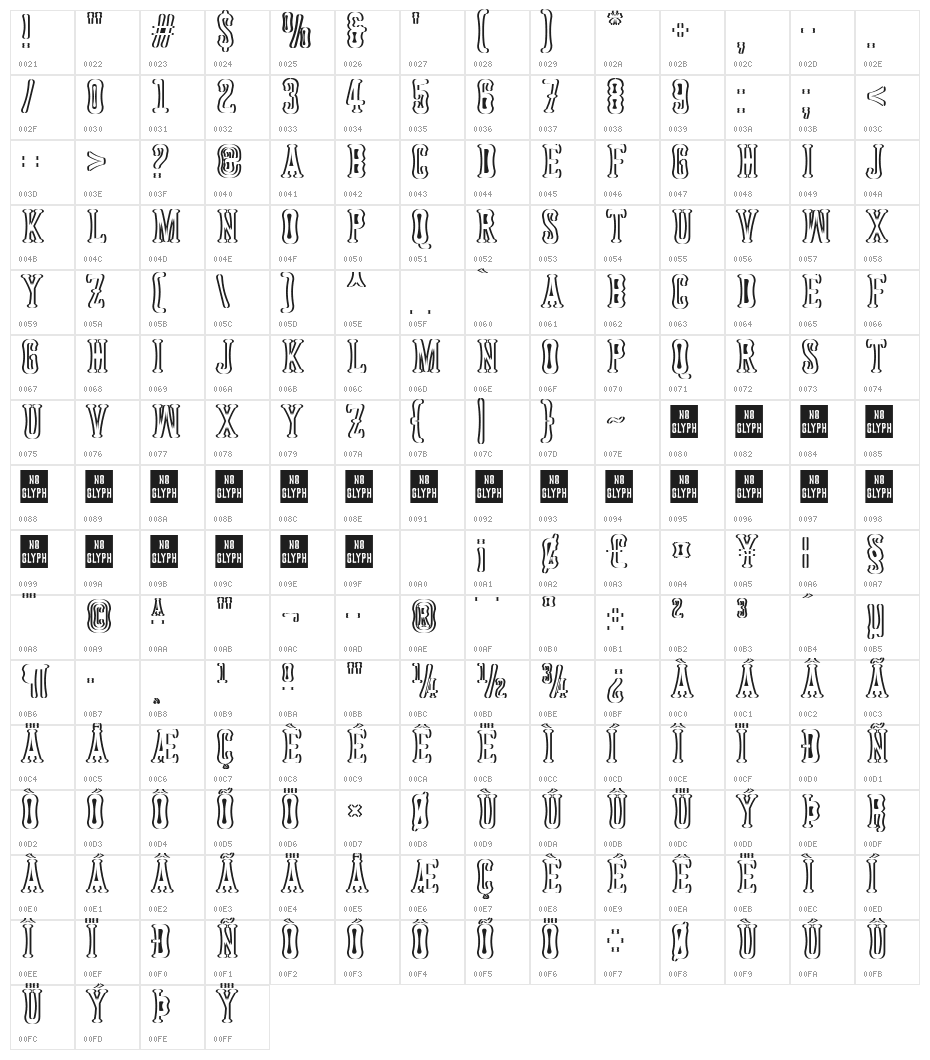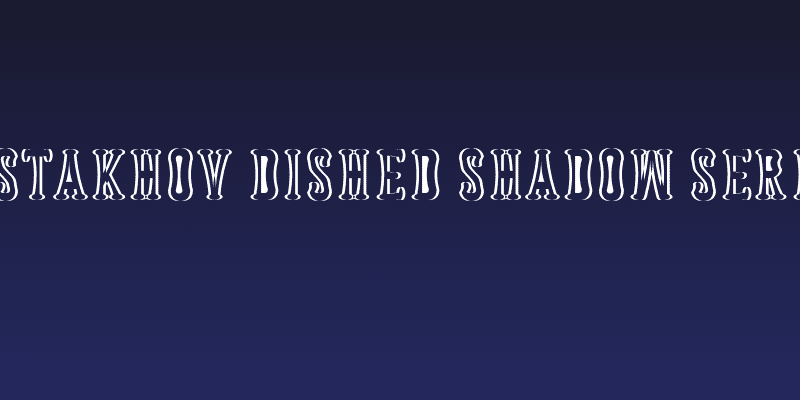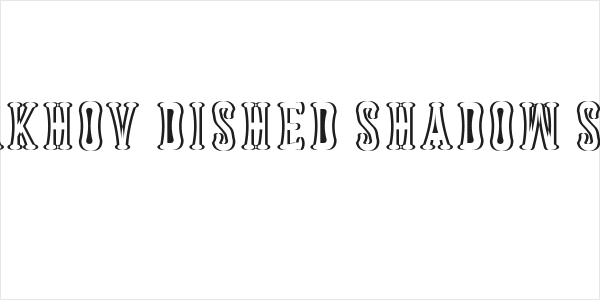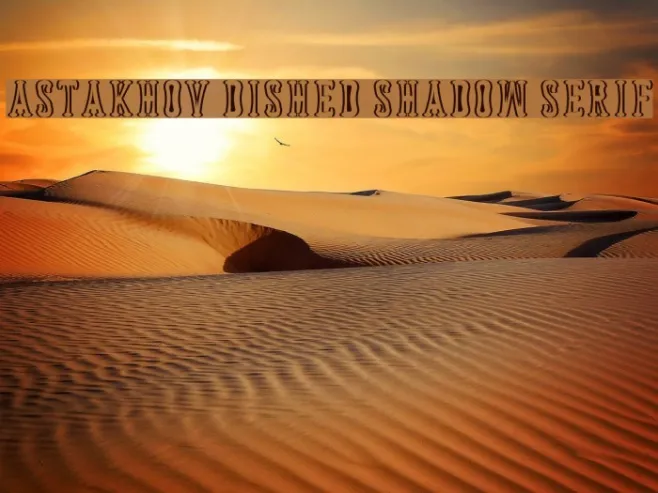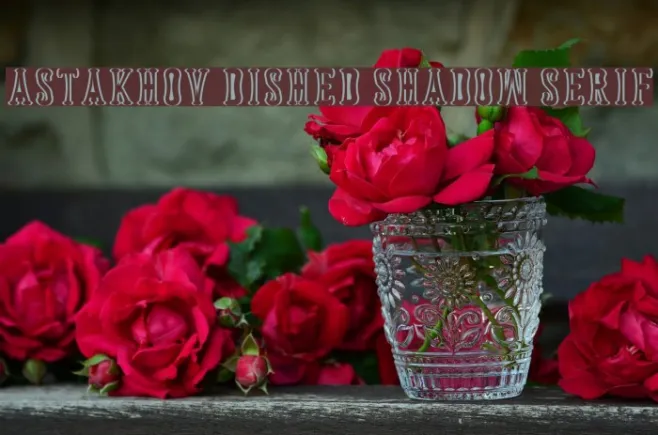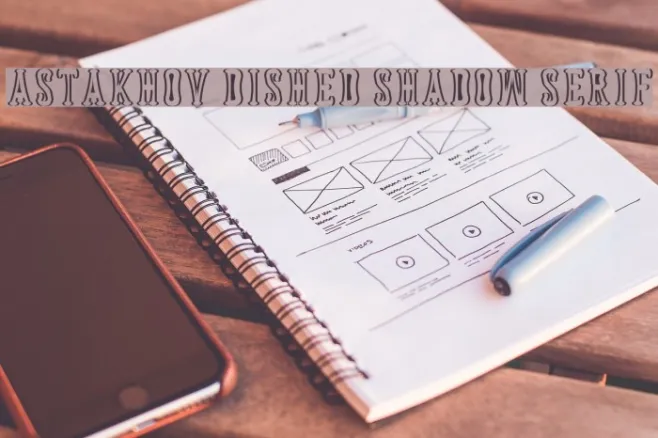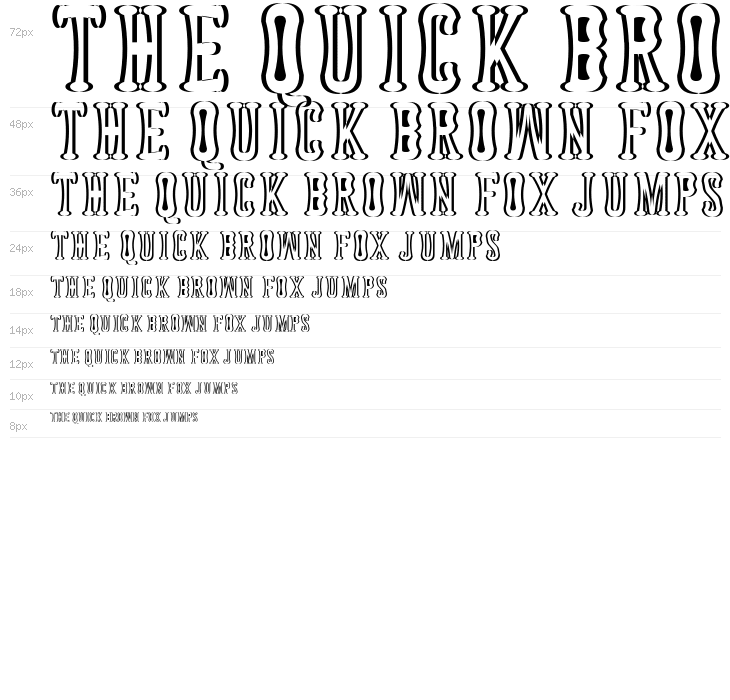
Astakhov Dished Shadow Serif Font
Astakhov Dished Shadow Serif Description
This font features a bold and decorative serif style with a unique shadow effect that gives it a three-dimensional appearance. The characters are designed with a strong vertical emphasis and pronounced serifs, creating a striking and dramatic look. The shadowing adds depth, making each letter stand out prominently. The font maintains a consistent weight throughout, with medium contrast in stroke thickness. Its ornate design is reminiscent of vintage signage or posters, offering a blend of classic and artistic flair. The spacing between characters is normal, ensuring readability while maintaining its decorative appeal.
| Overall Style | Vintage, Decorative |
| Proposed Projects | Ideal for vintage-themed posters, signage, branding, and headlines that require a bold and artistic touch. |